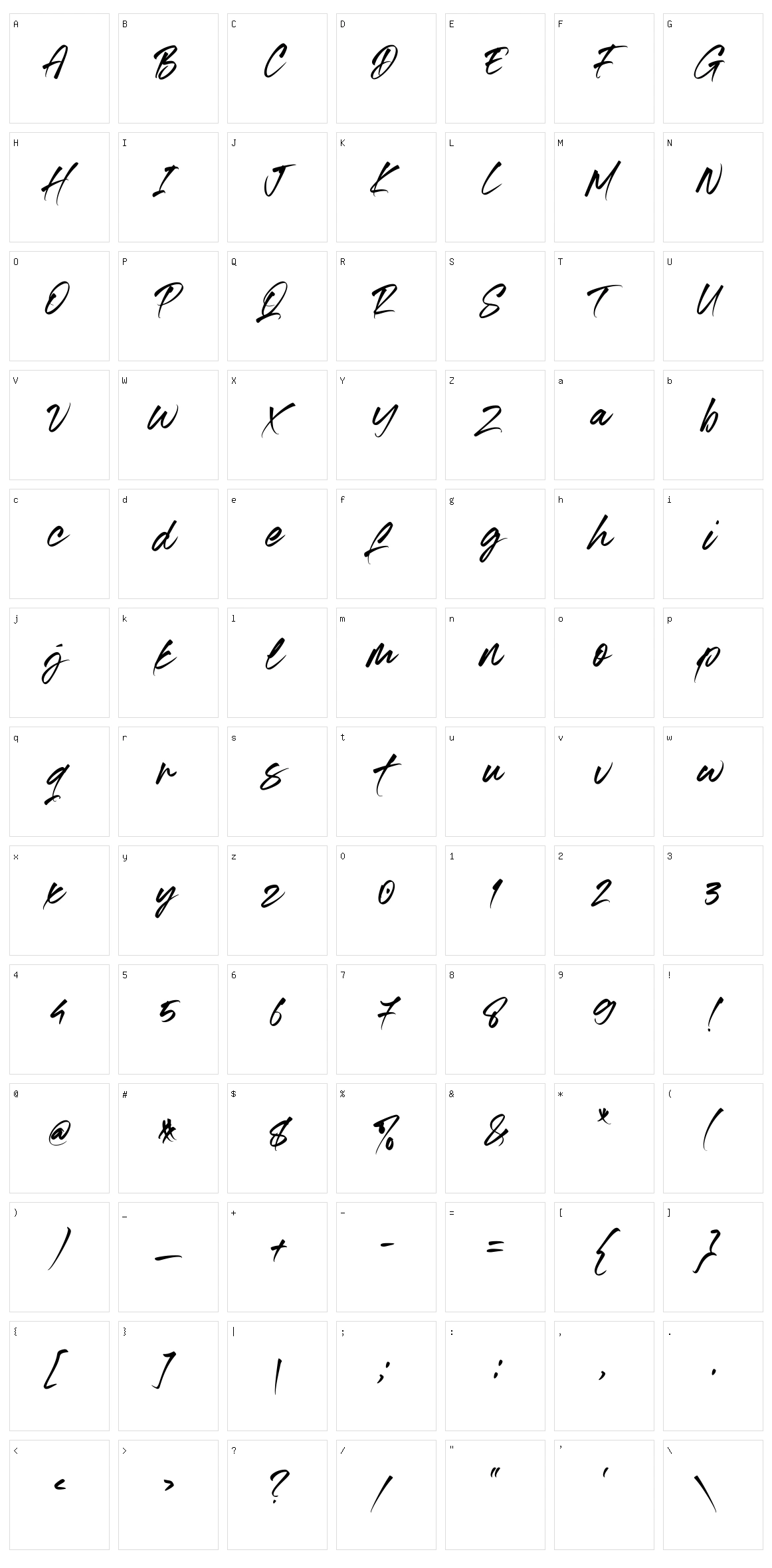
The free font Authentic Photograph is carefully designed by Azetype Studio, showcasing a thoughtful balance of creativity and usability and falls under the Script font style. When you download the ZIP file, it contains only 44.03 KB of font files, making it lightweight and quick to download. Please review the license details below to understand permitted usage and distribution rights. If license information is not available, we recommend using this font for personal projects only or contacting the author directly for commercial usage permissions.